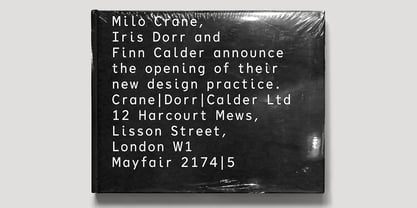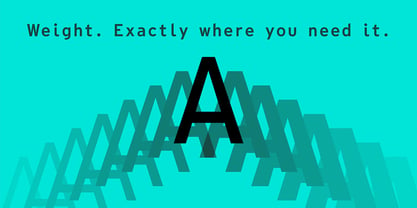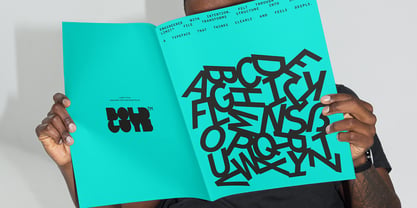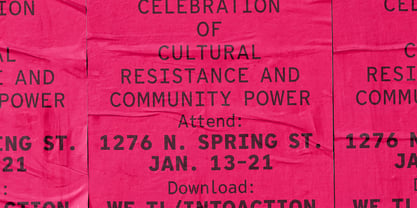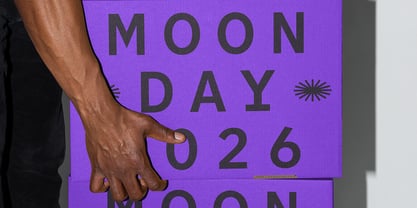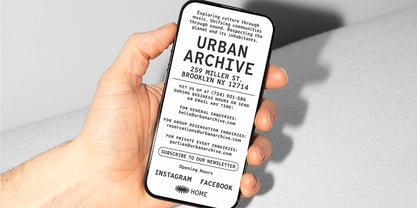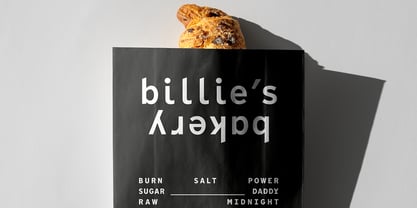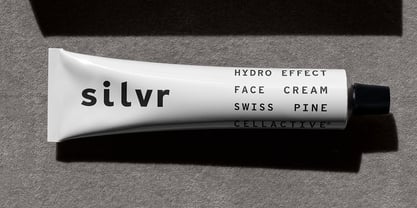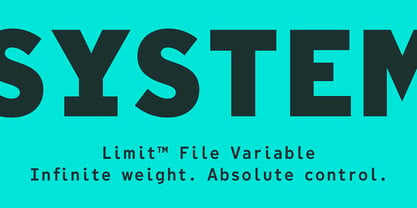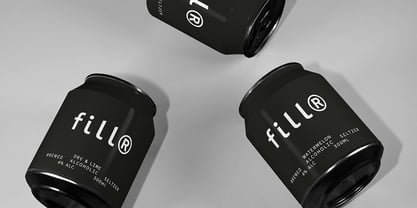
Limit File Variable Concept
by Bold Guys™
The Limit File Variable Concept Font Family was designed by Jörg Hemker and published by Bold Guys™. Limit File Variable Concept contains 2 styles and family package options.
Limit™ File Variable refines clarity into precise control. Instead of fixed weights, the system unfolds into a continuous spectrum — allowing hierarchy to be calibrated rather than switched. The distinctive rhythm and semi-monospaced structure remain consistent, while weight can be tuned with subtle accuracy. What was once defined by discrete styles becomes a responsive typographic tool — clean, controlled, and built for modern systems.
Designers: Jörg Hemker
Publisher: Bold Guys™
Foundry: Bold Guys™
Design Owner: Bold Guys™